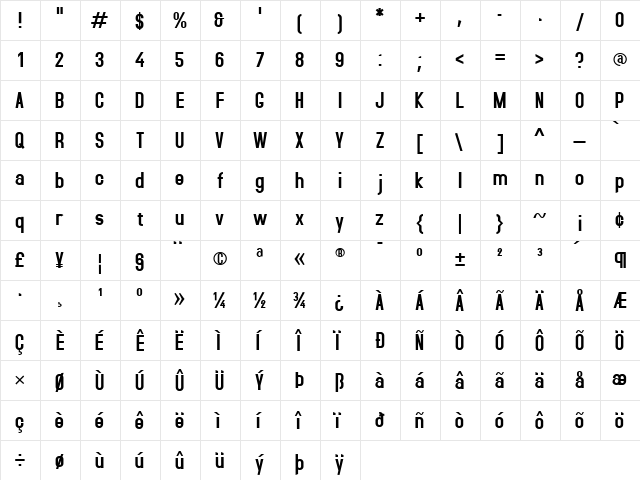
Accidental Presidency Regular Font Preview
Accidental Presidency Regular
Design Context for Accidental Presidency Typeface
Accidental Presidency offers clean, dependable letterforms without strong stylistic allegiance, making it a practical choice for designers who need flexibility.